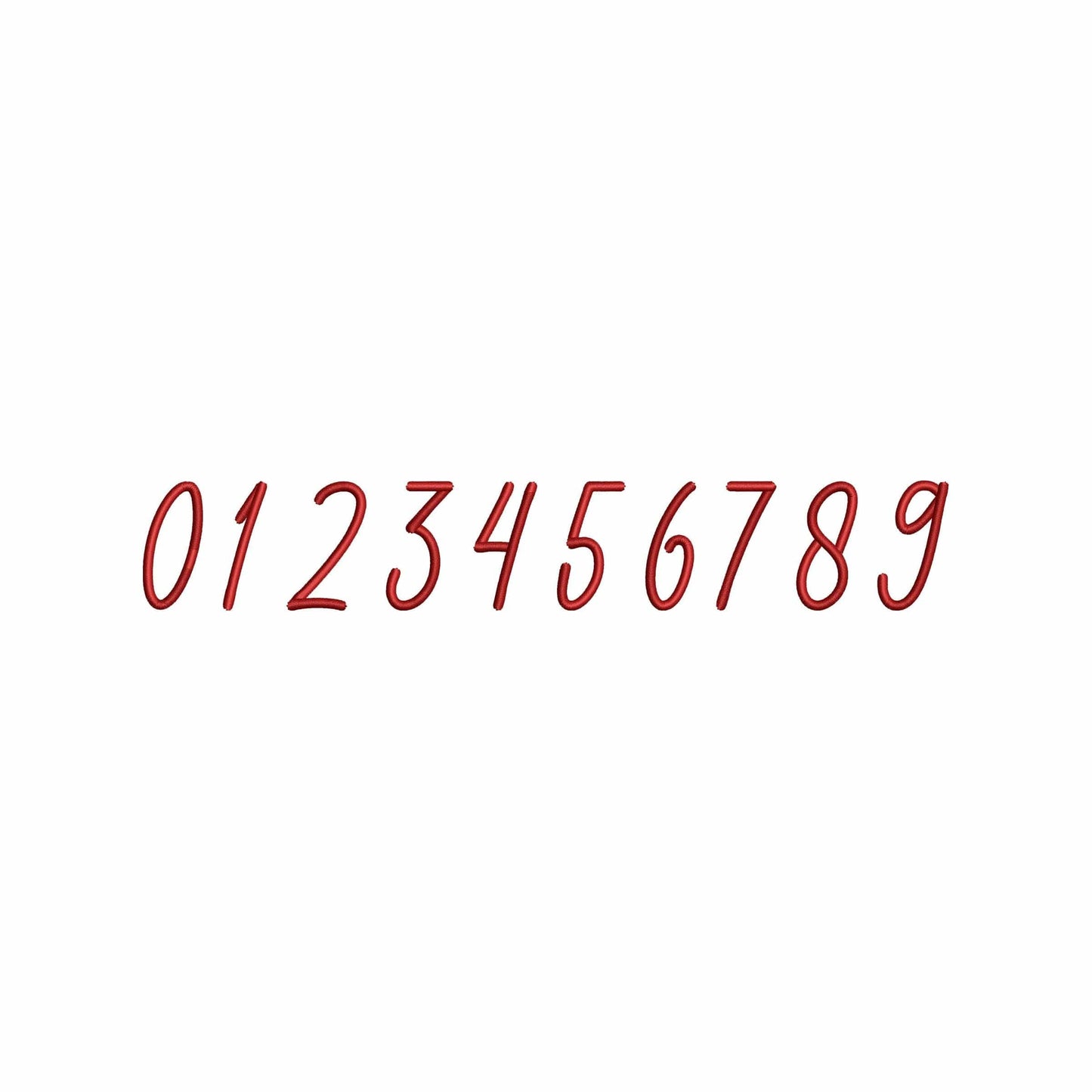
Mona Lisa - Embroidery font
This machine embroidery font works well for monograms, name embroidery, towels, shirts, and feminine custom gifts.
A useful digital download for makers who want cursive lettering with a graceful handwritten style.